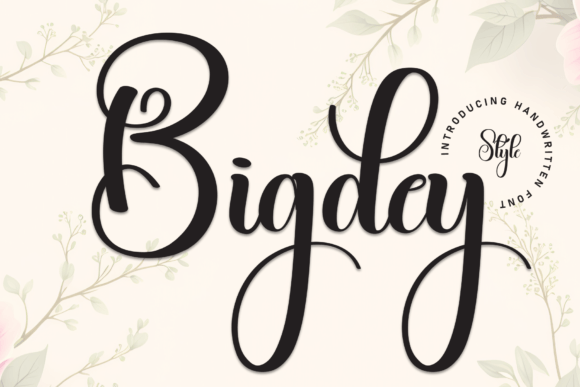
Discover the Whimsical Charm of Bigdey Font
Have you ever been in the middle of a design project, pouring your heart and soul into creating something truly special, only to realize that it’s missing that one magical element to make it shine? I recall a particularly frustrating moment when I was working on a wedding invitation project. My client wanted a design that was elegant, yet playful; sophisticated, yet approachable. I scoured the internet for the perfect font, but nothing seemed quite right. That was until I stumbled upon Bigdey Font.
A Delightful Handwritten Font with a Touch of Charm
Bigdey Font is a delightful handwritten font that exudes charm and friendliness. Its whimsical touch makes it a perfect pick for crafting enchanting wedding invitations, lovable cards, and joyful proclamations. This font is brimming with cuteness and sparkles of fun, adding a much-needed glimmer of delight to any design seeking a playful twist.
- ✨ The font’s whimsical and playful personality makes it perfect for designs that require a touch of friendliness.
- ✅ The font is highly legible, even at smaller sizes, making it versatile for various design applications.
- 💫 The font’s unique character set includes a range of glyphs and stylistic alternates, allowing for endless creative possibilities.
While Bigdey Font is an exceptional font, there are a few minor quirks to be aware of:
- ⚠️ Some of the font’s more intricate details may not render well at very small sizes.
- 🤔 The font’s playful nature may not be suitable for more formal or corporate designs.
The Designer Inspiration Behind Bigdey Font
Bigdey Font was designed with the intention of creating a font that would bring joy and whimsy to designs. The font’s creator drew inspiration from classic handwritten fonts, infusing them with a modern twist to create a unique and playful personality.
Q: What type of designs is Bigdey Font best suited for?
A: Bigdey Font is perfect for designs that require a touch of whimsy and friendliness, such as wedding invitations, cards, and joyful proclamations.
Q: Is Bigdey Font available in different weights or styles?
A: Bigdey Font comes in a range of weights and styles, making it versatile for various design applications.